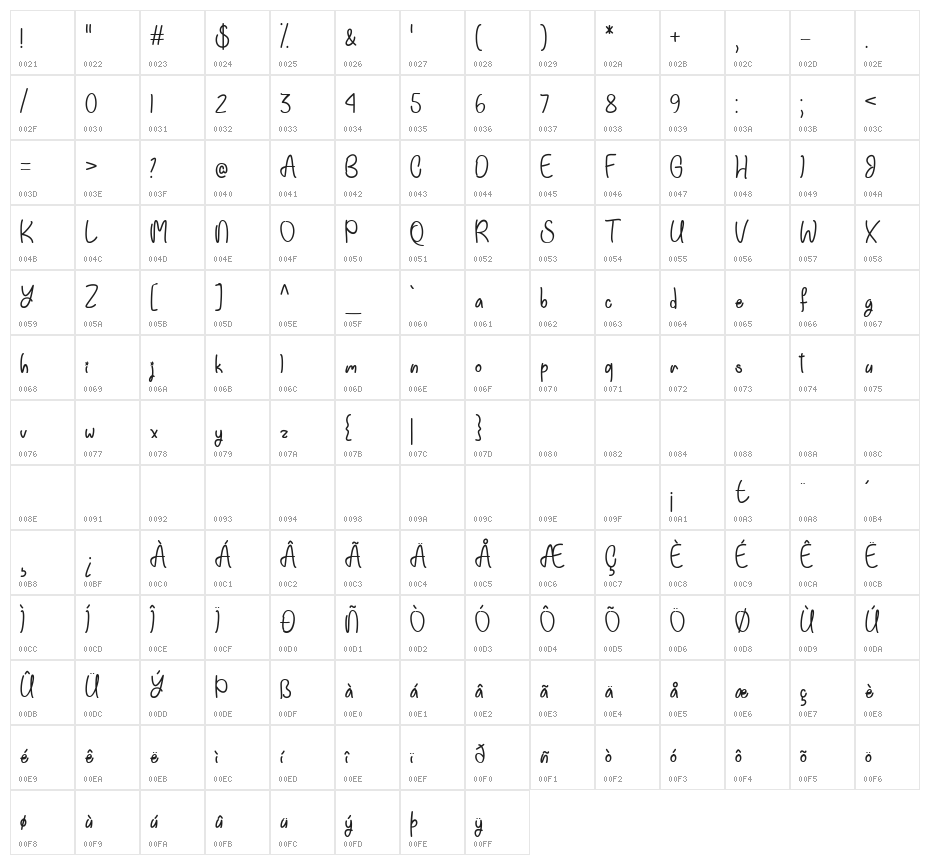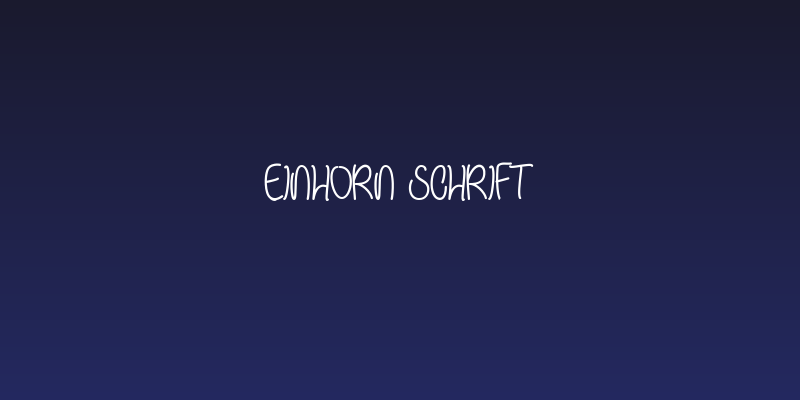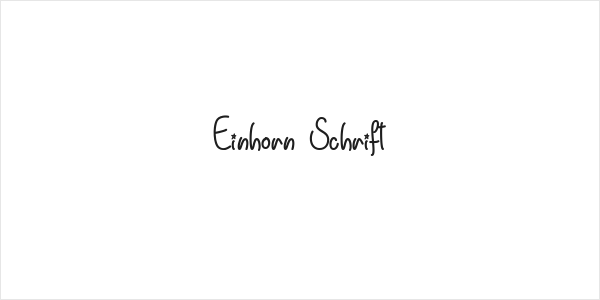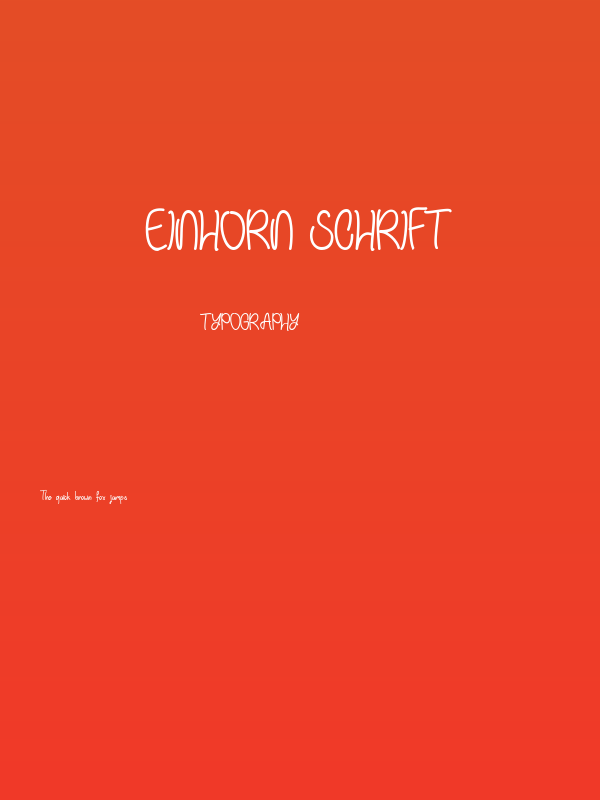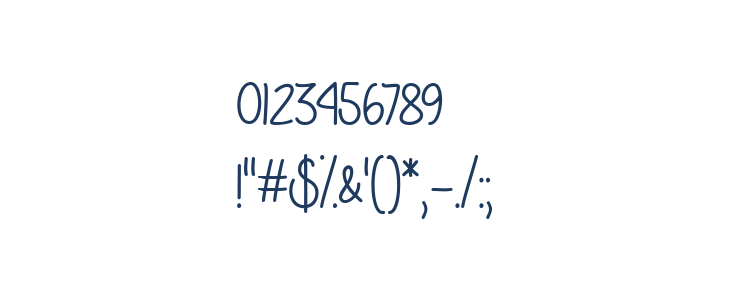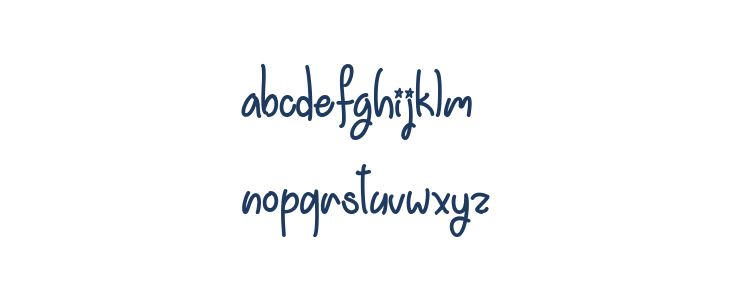
Einhorn Schrift Font
Einhorn Schrift Description
This playful and whimsical font features a handwritten style with a smooth, flowing appearance. The characters are slightly elongated, giving them a unique and friendly look. The uppercase letters are bold and prominent, while the lowercase letters maintain a consistent style with a touch of elegance. The numbers and special characters are well-integrated, maintaining the overall playful theme. This font is perfect for projects that require a personal touch, such as invitations, greeting cards, or children's book covers.
| Proposed Projects | Ideal for invitations, greeting cards, children's book covers, and playful branding. |